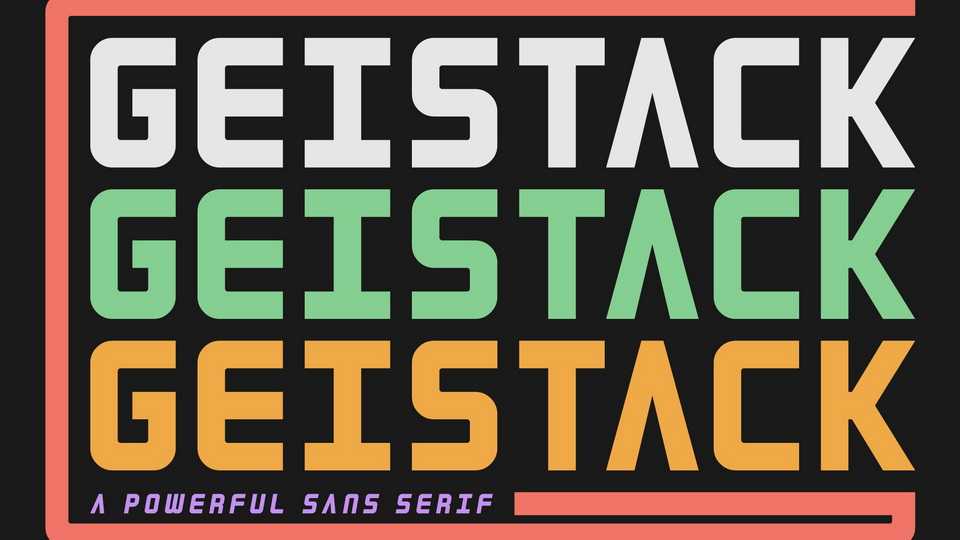
Download Geistack font, a bold hand-printed typeface, that celebrates the original letterpress style and all its beautiful imperfections. It’s narrow powerful shapes lend itself to strong design, whilst the textures give it an authentic voice.
Designer: Shanaya Creative